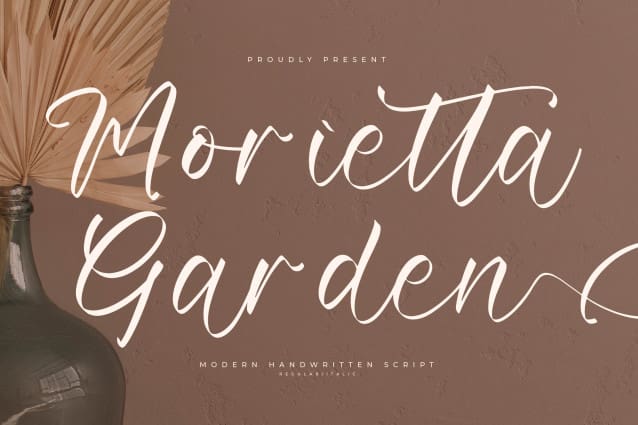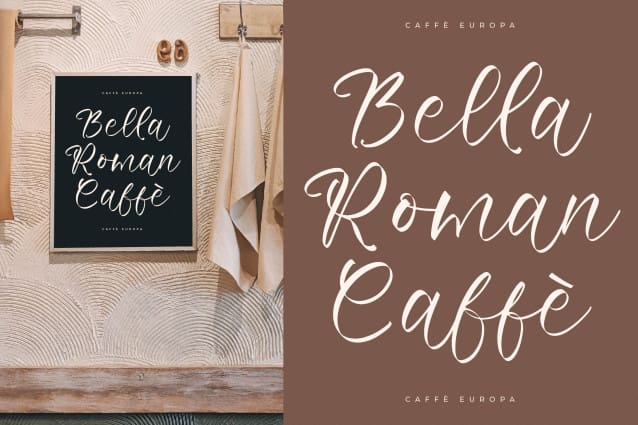
Morietta Garden Font
Morietta Garden Font – Modern Handwritten Script , from Letterena, is a Luxury Script font, suitable for any projects such as: logos, branding projects, homeware designs, product packaging, mugs, quotes, posters, shopping bags, t-shirts, book covers, name card, invitation cards, greeting cards, label, photography, watermark, special events, and all your other luxury and beautiful projects that need a Luxury Script taste.